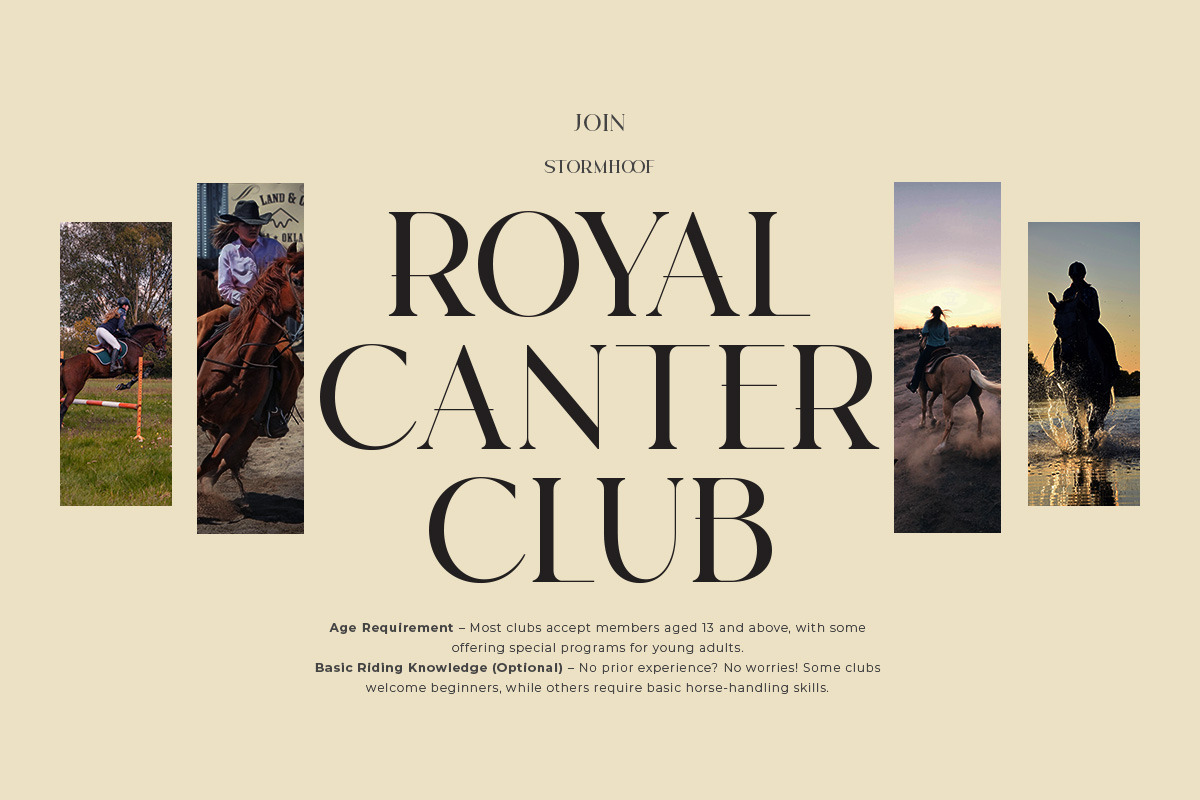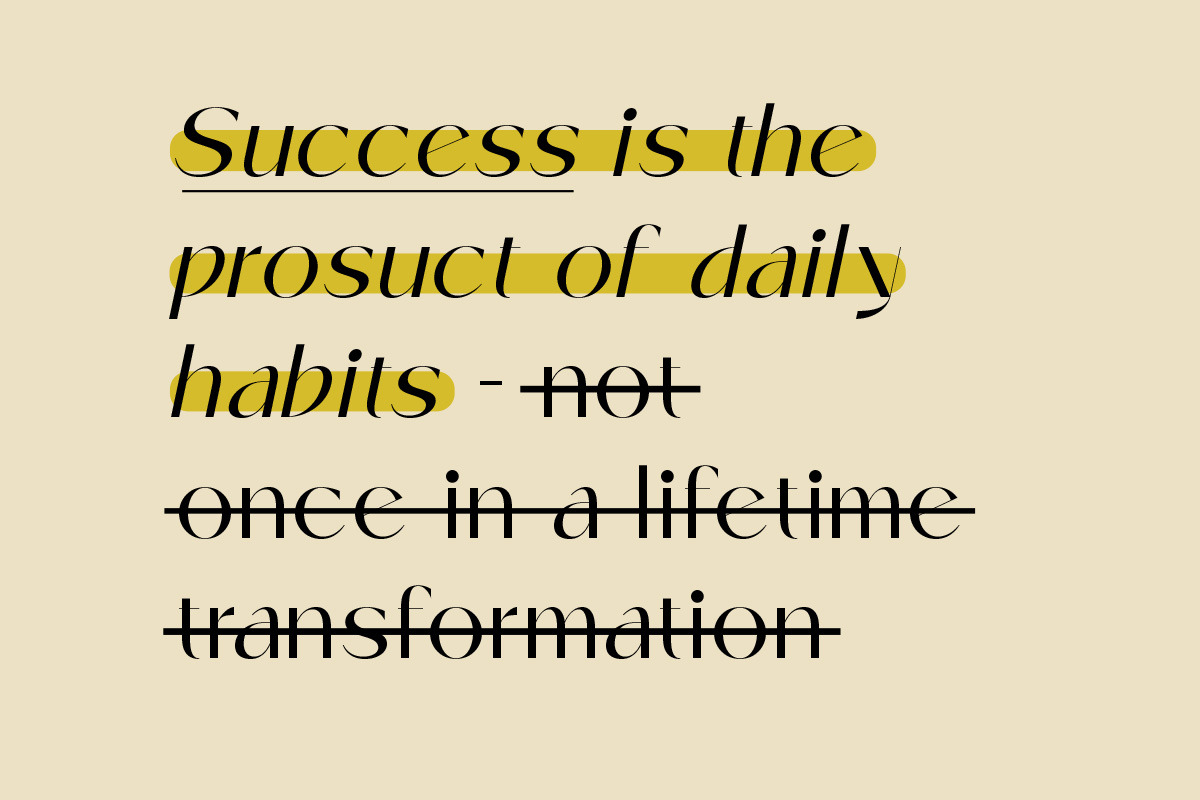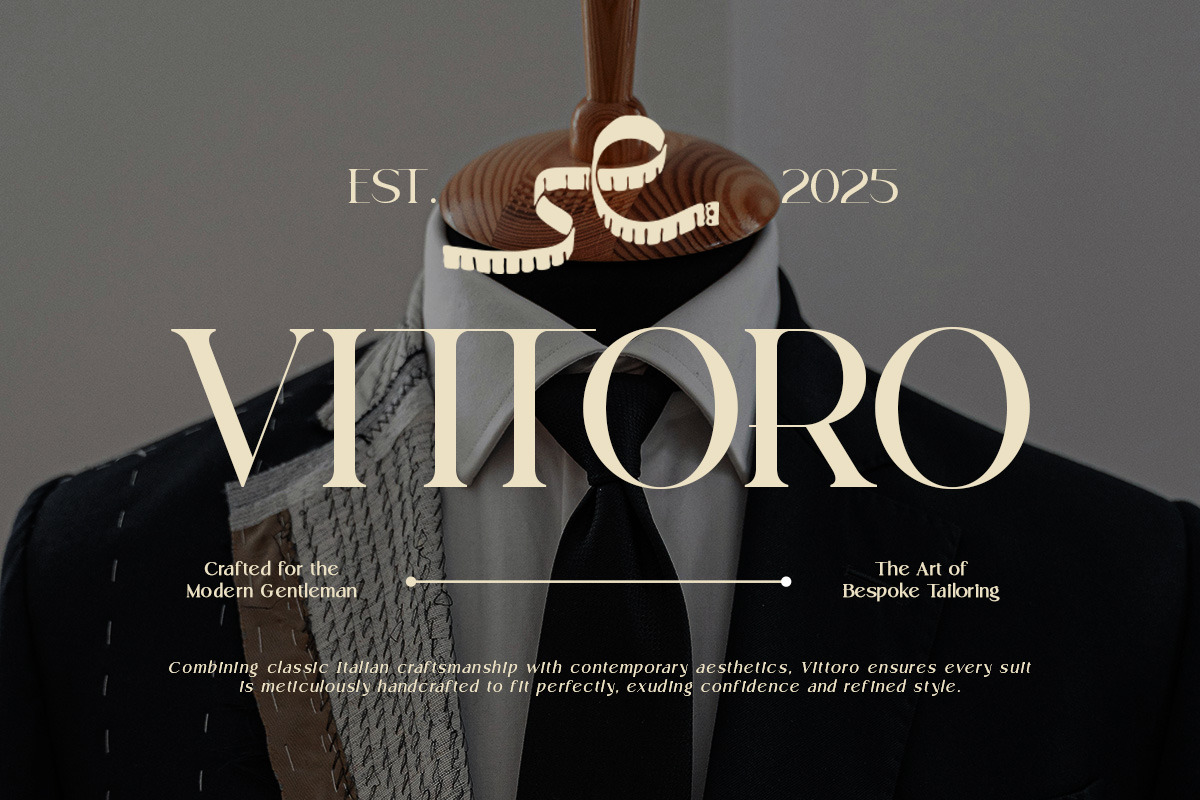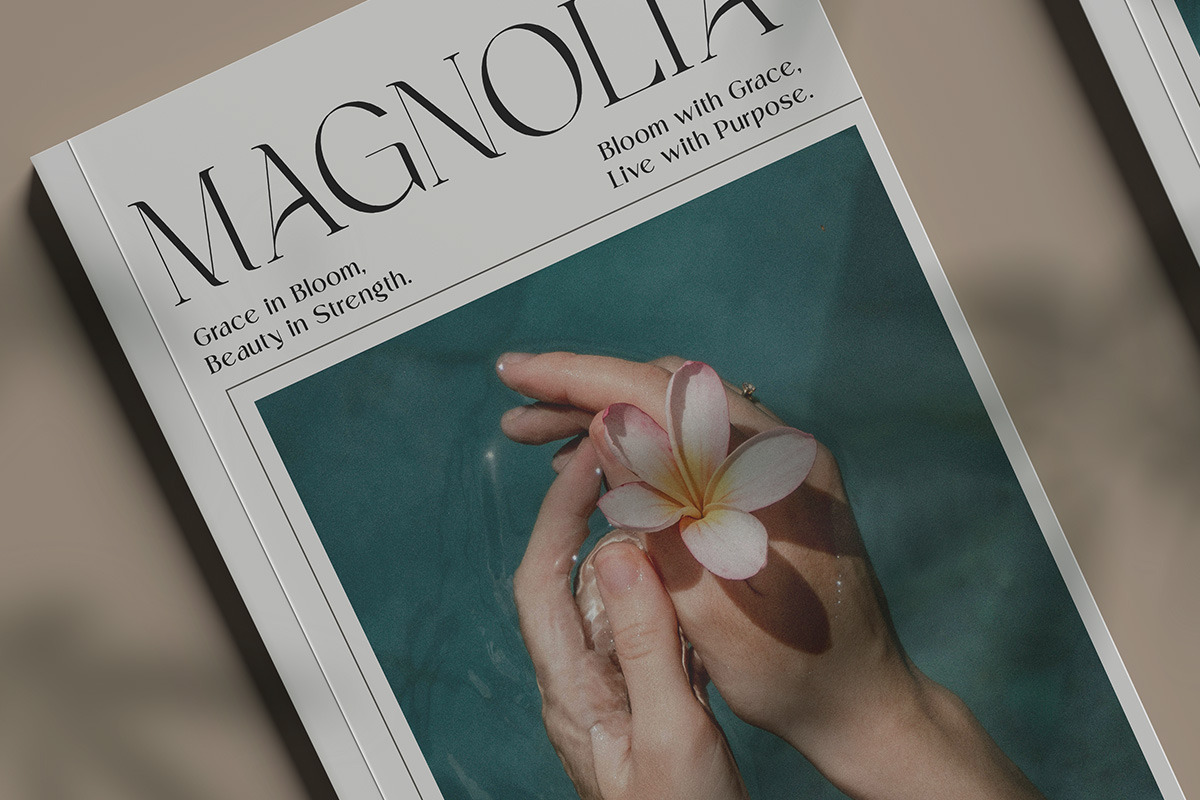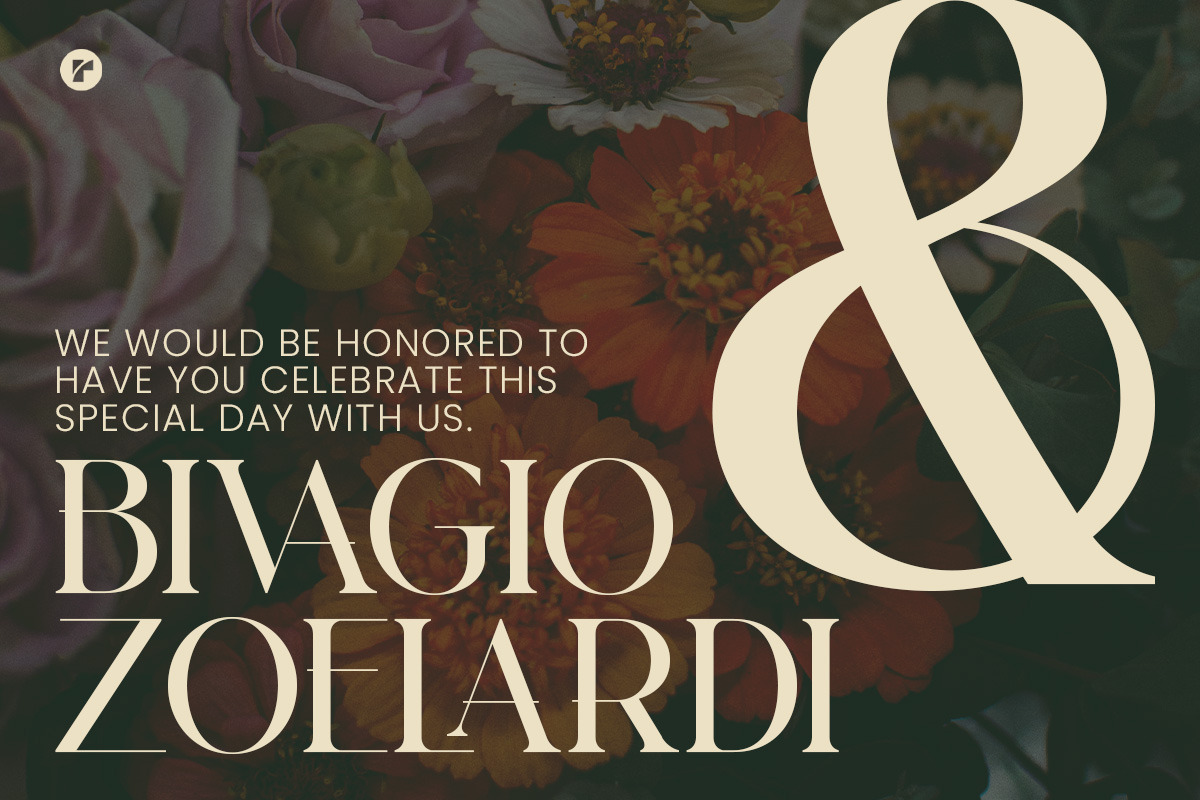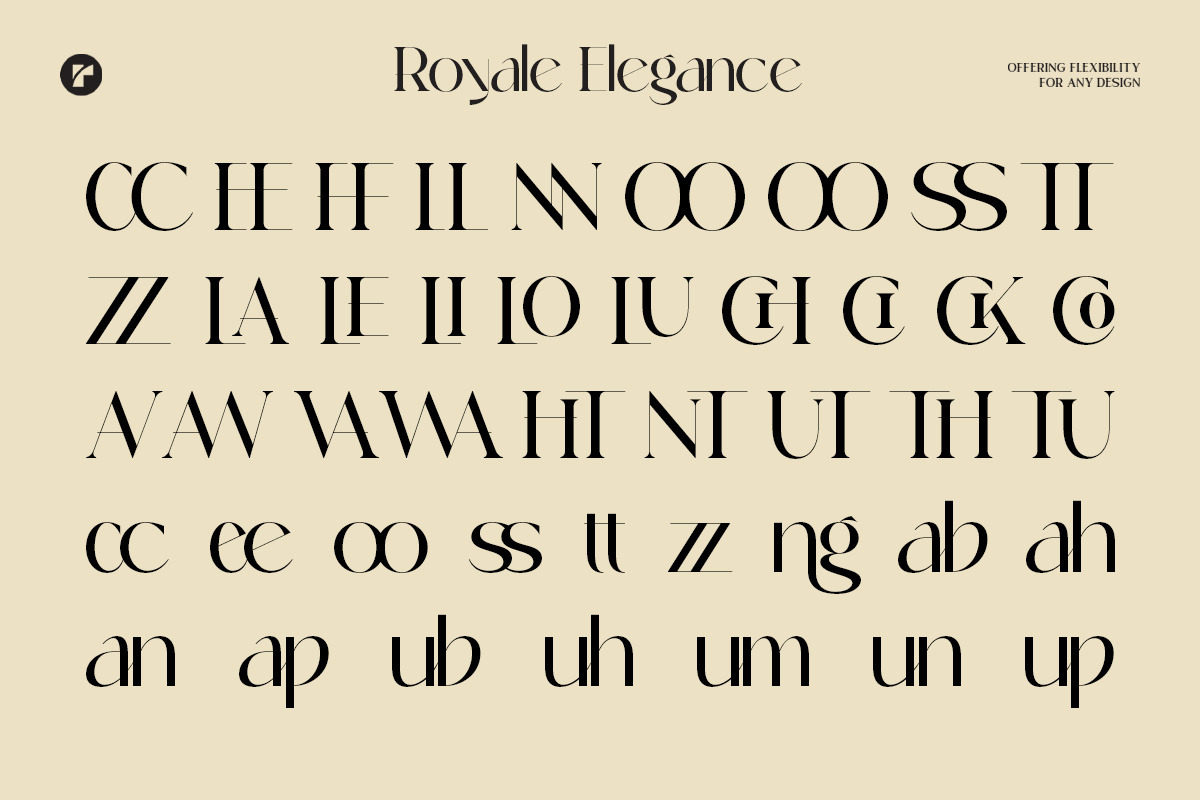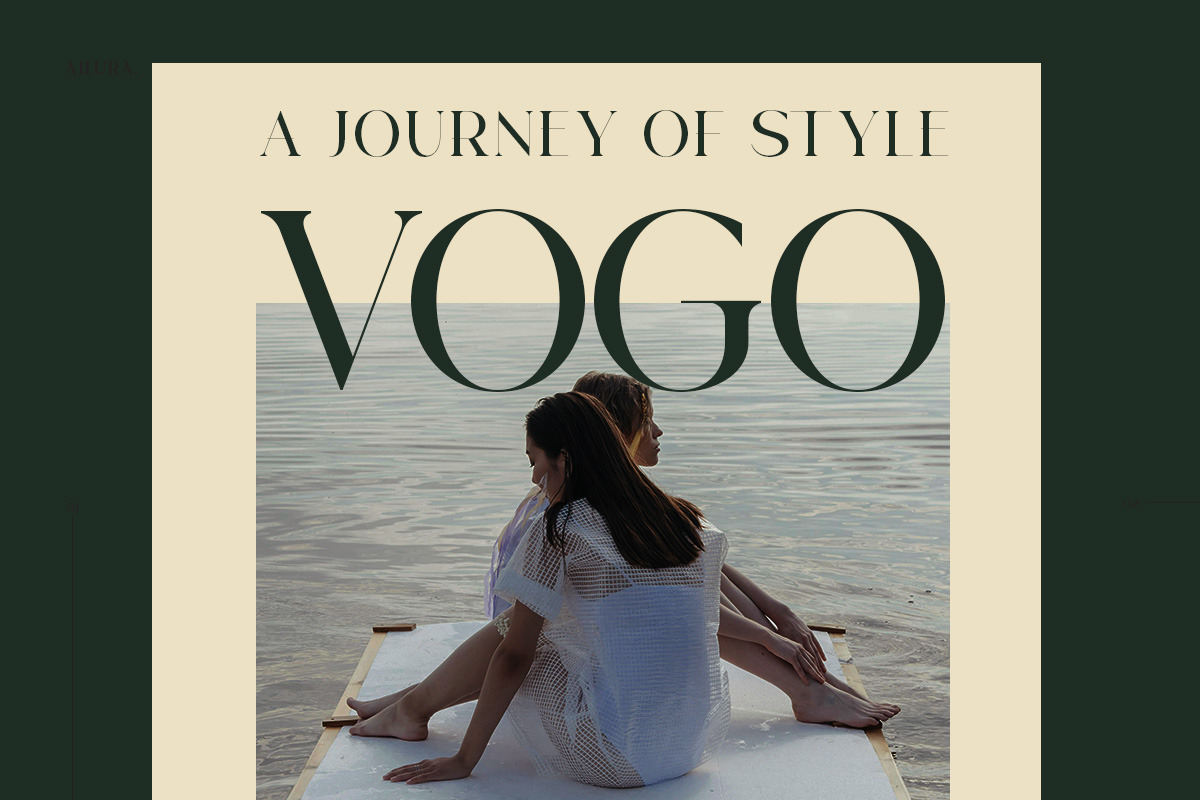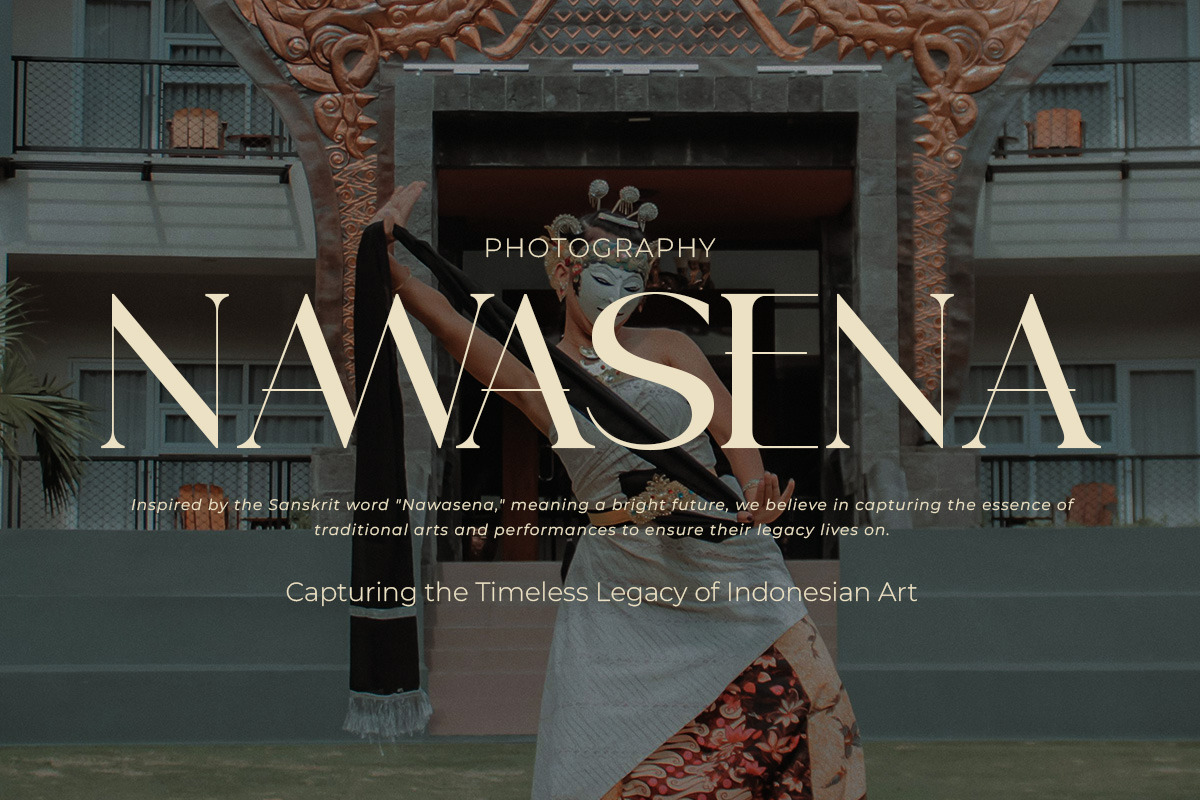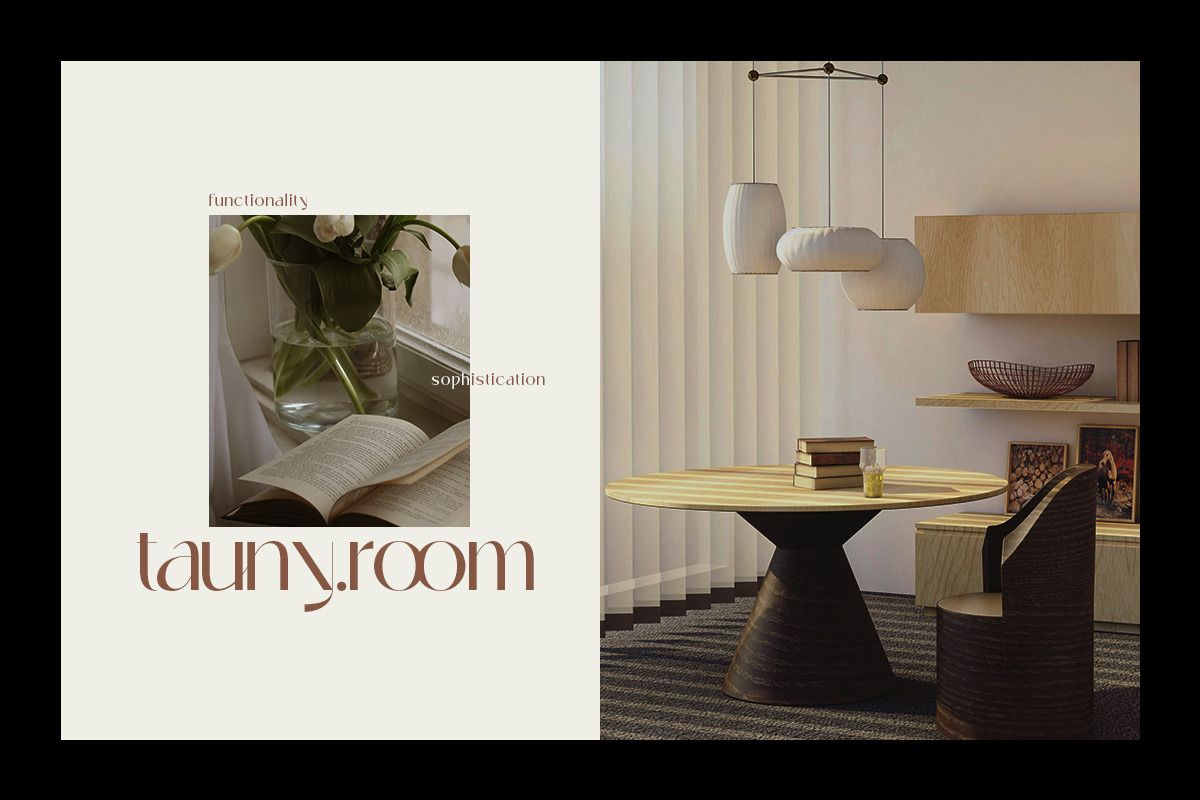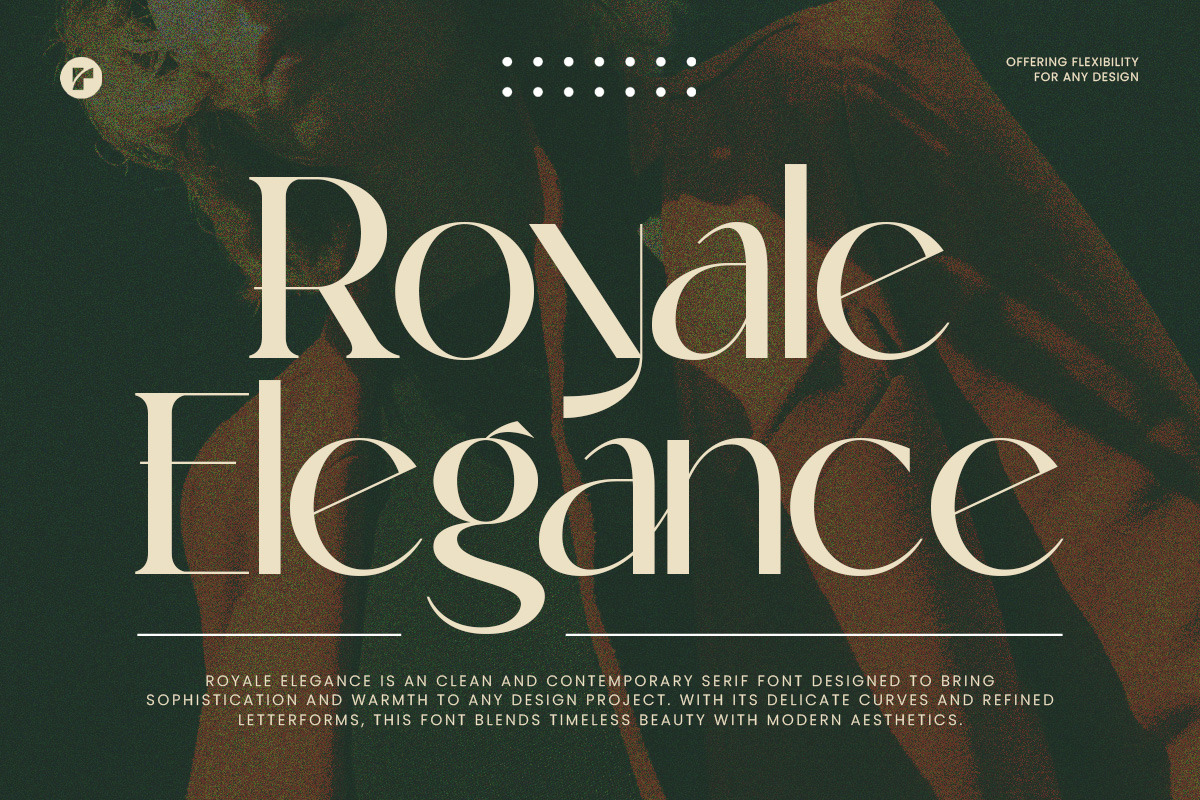
Royal Elegance - Modern Luxury Font
Royale Elegance is more than just a serif font—it’s a statement of style and refinement. Designed with a modern yet classic touch, this typeface brings effortless luxury to any project. Its delicate curves and well-balanced contrast create an elegant look that feels both timeless and contemporary.
Whether you're working on branding, editorial layouts, wedding invitations, or premium packaging, Royale Elegance elevates your design with a sense of grace and sophistication. It blends the charm of traditional typography with a fresh, modern aesthetic, making it the perfect choice for those who appreciate subtle elegance with a bold presence.